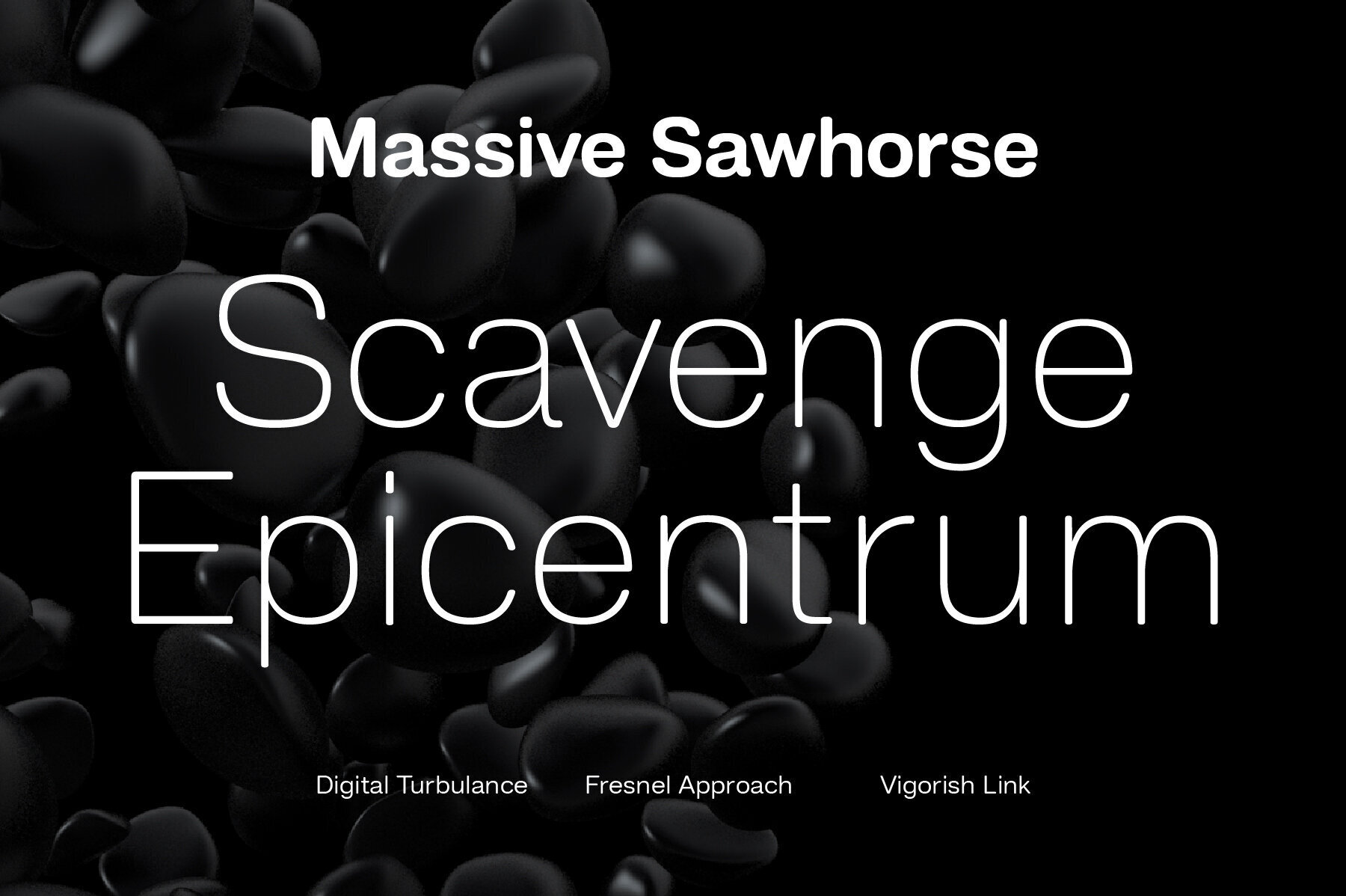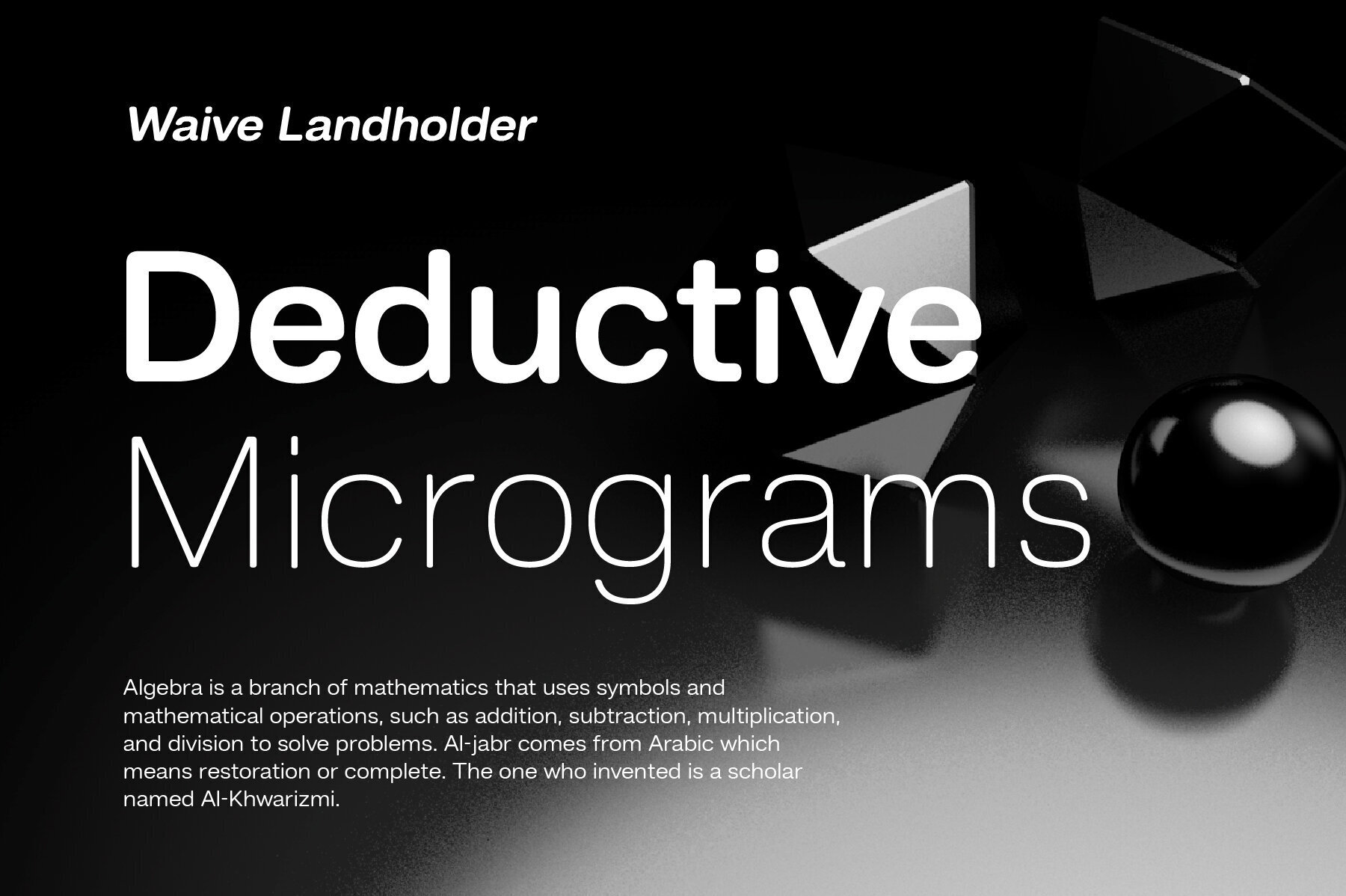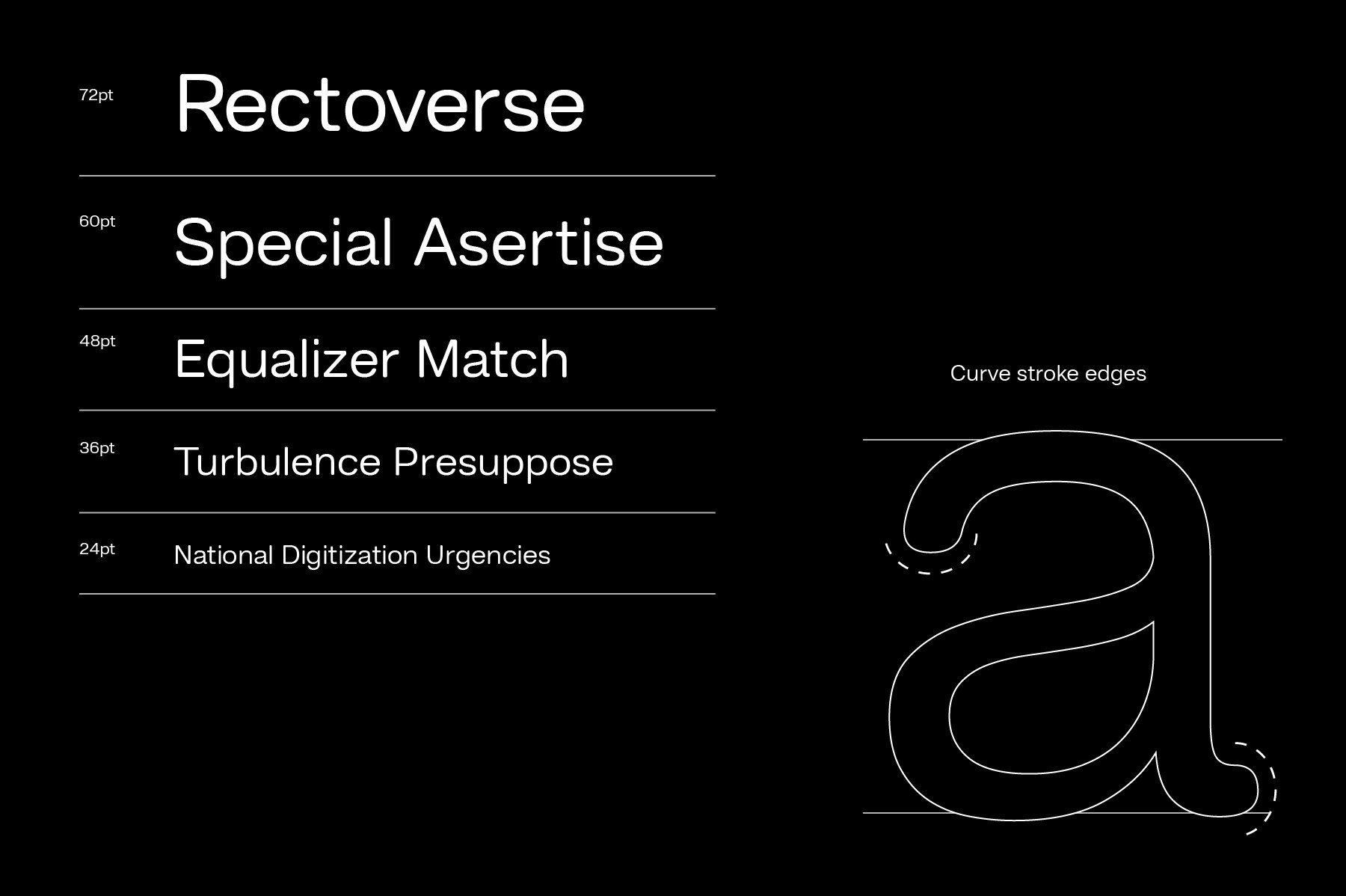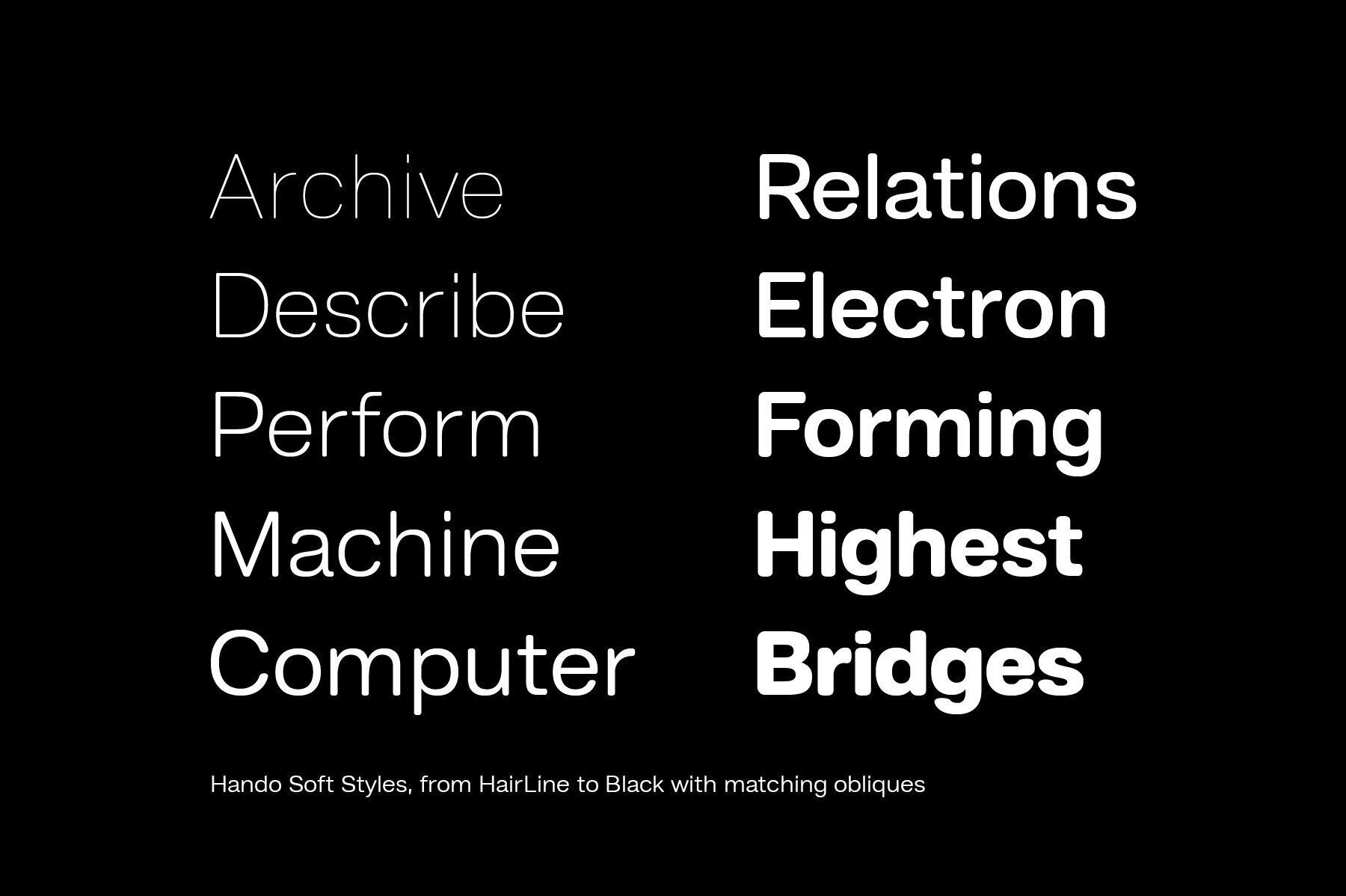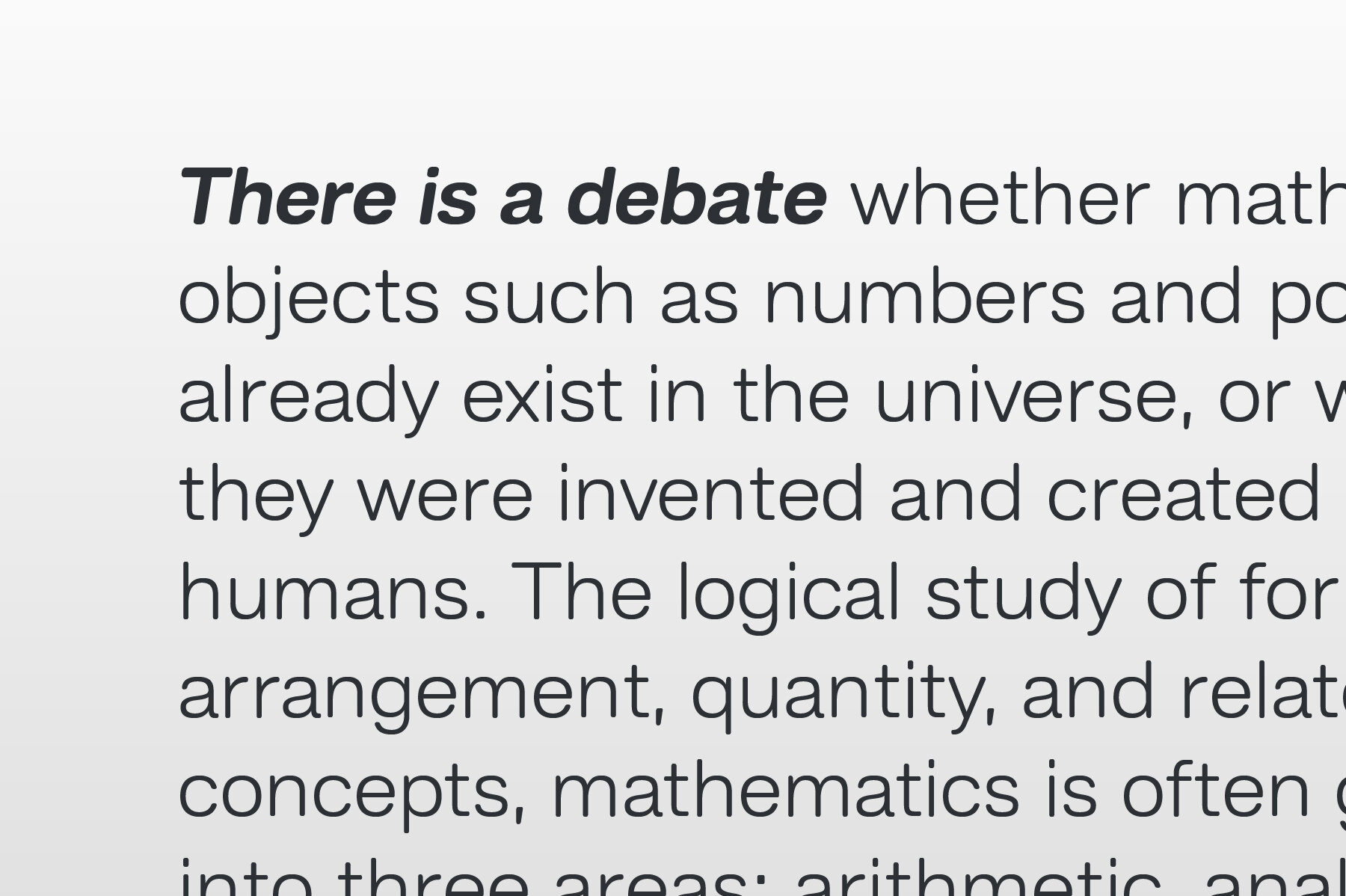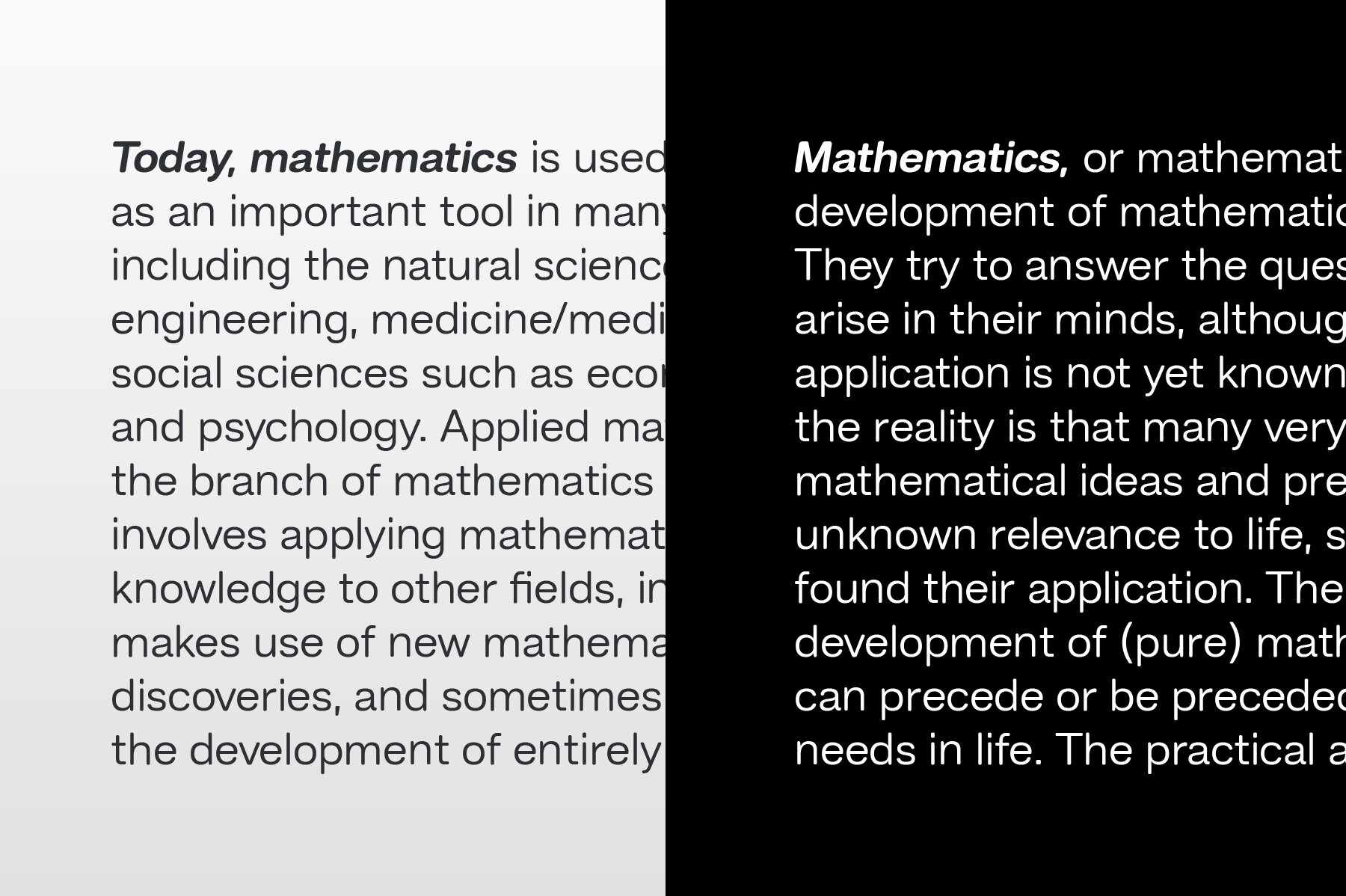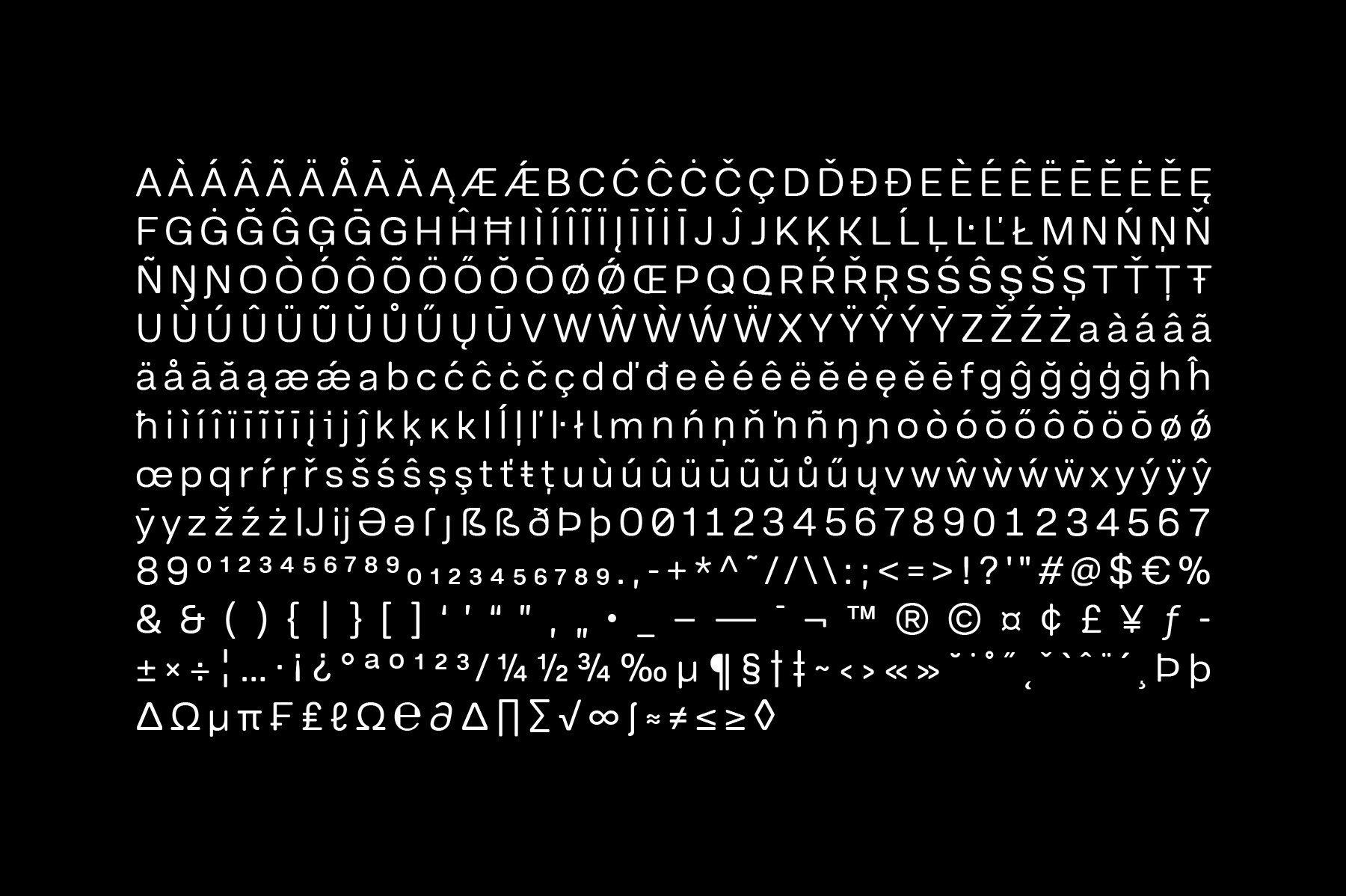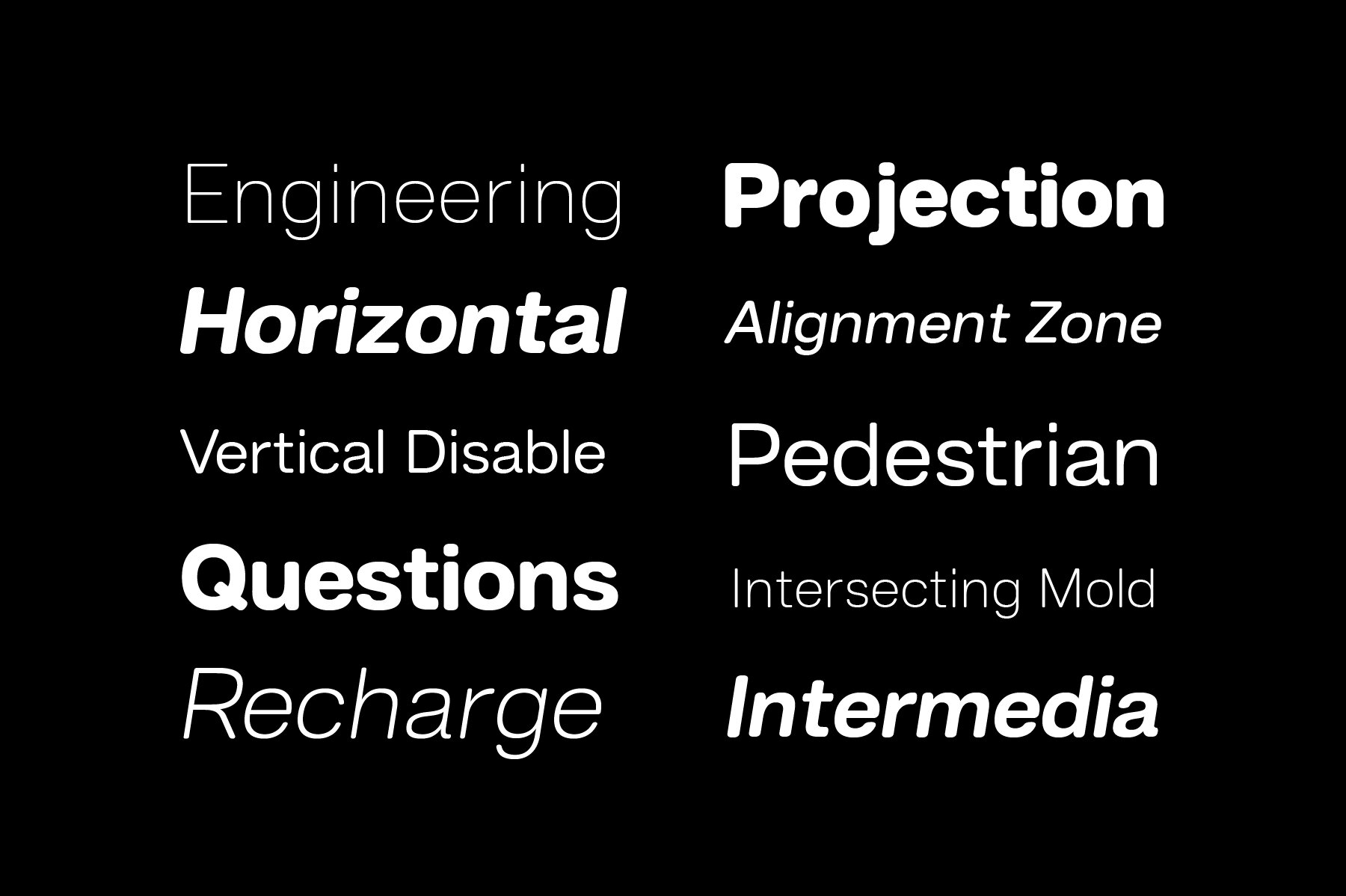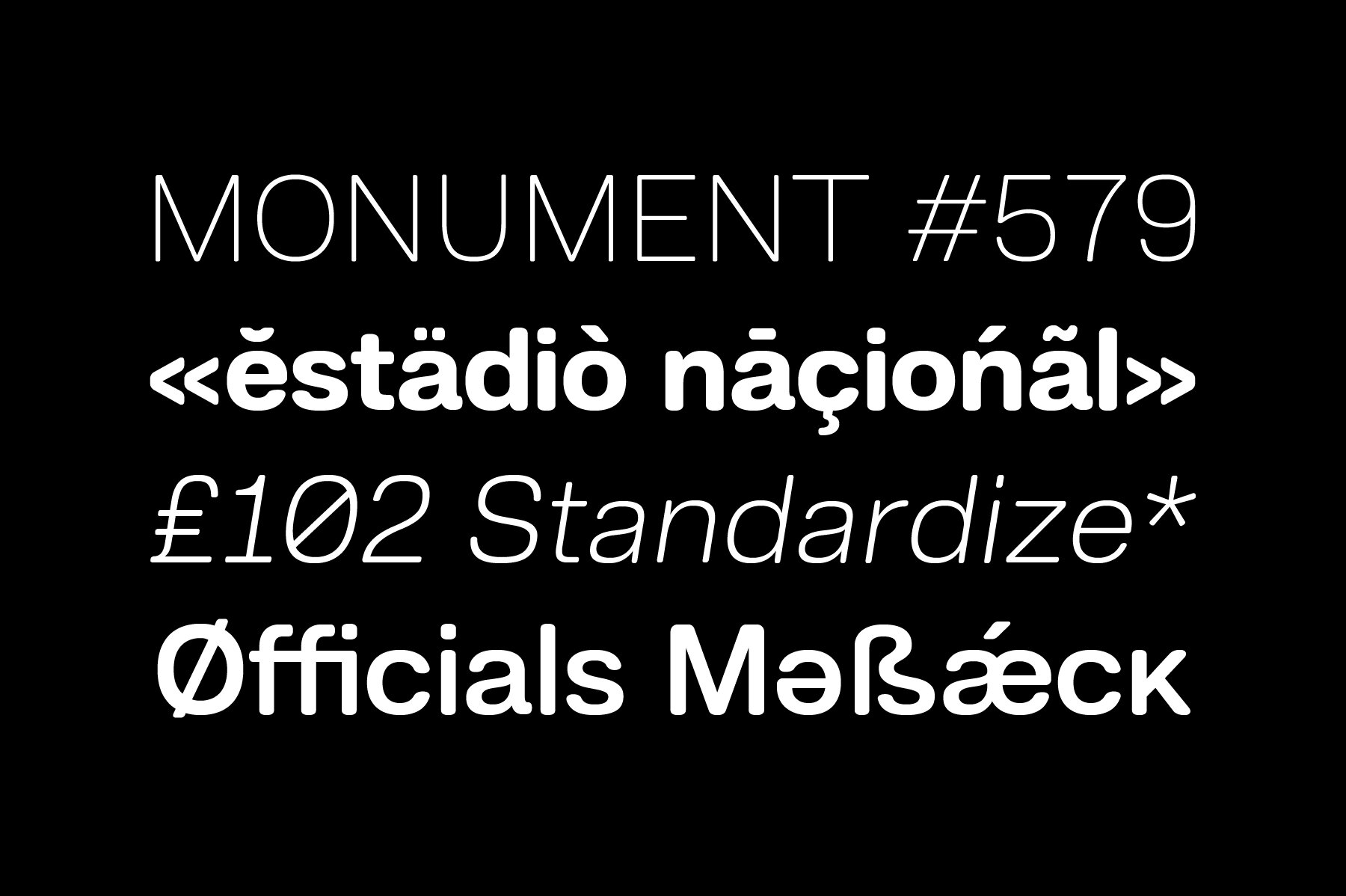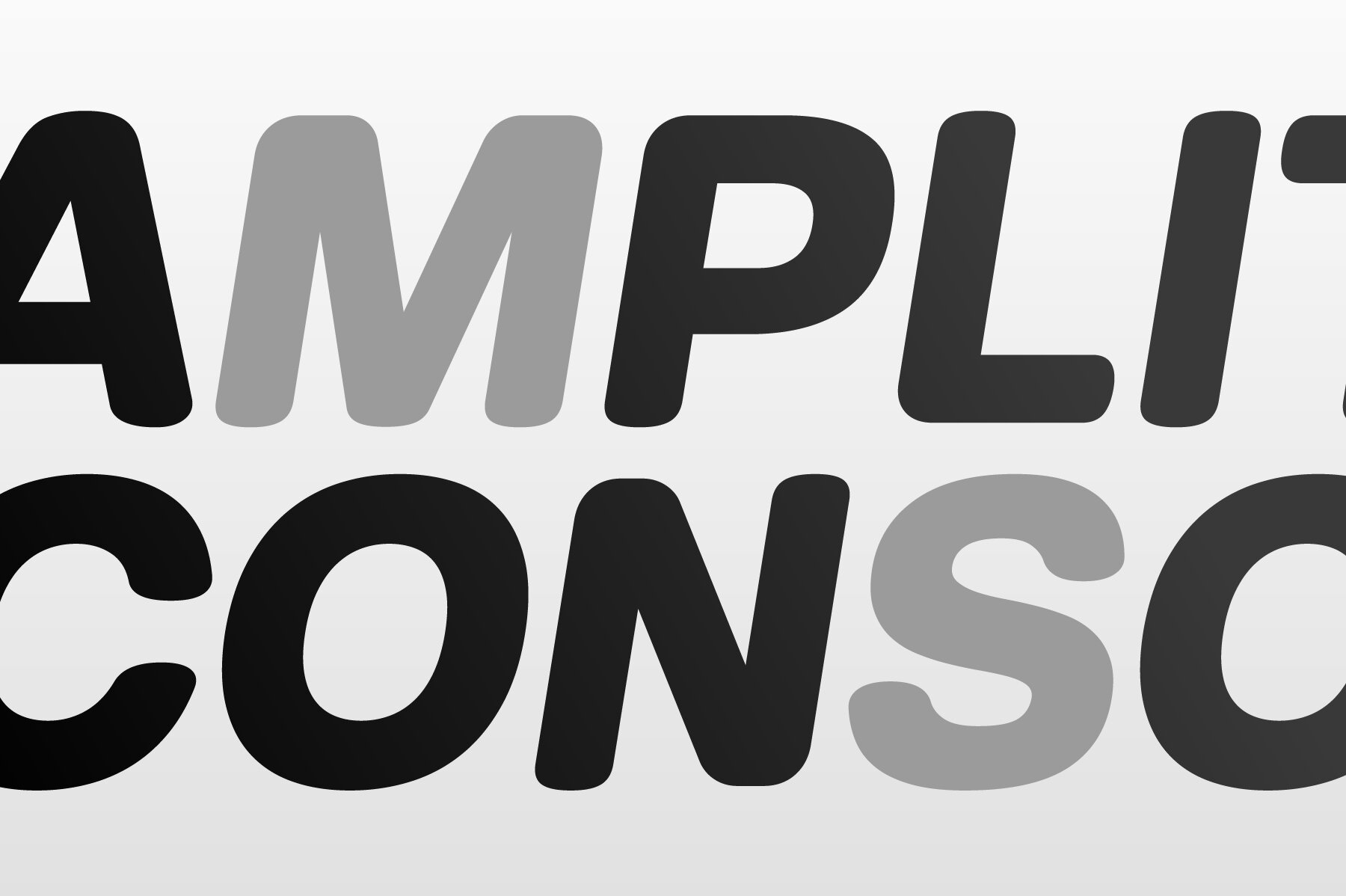
Hando Soft Font
Hando Soft is a variant of Hando neo grotesk sans family. Each letter on Hando Soft has curve strokes end, which gives a soft and more ease-looking letterforms.
Hando offers a wide range of usage possibilities. It's low x-height and variety of light size options make it a good choice for reading, it's tenuous white spaces in the counter letterforms make it legible enough to be recognized remotely. It's curved tensions on the circular letterforms gave a futuristic impression. It's sleek and simple strokes make it perfect for a broad range design purposes. Hando consists of 10 styles from Hairline to Black with each matching oblique. Contains more than 440 glyphs that support a broad latin language. Also some Opentype features e.g. stylistic alternates, variation of figures, e.t.c